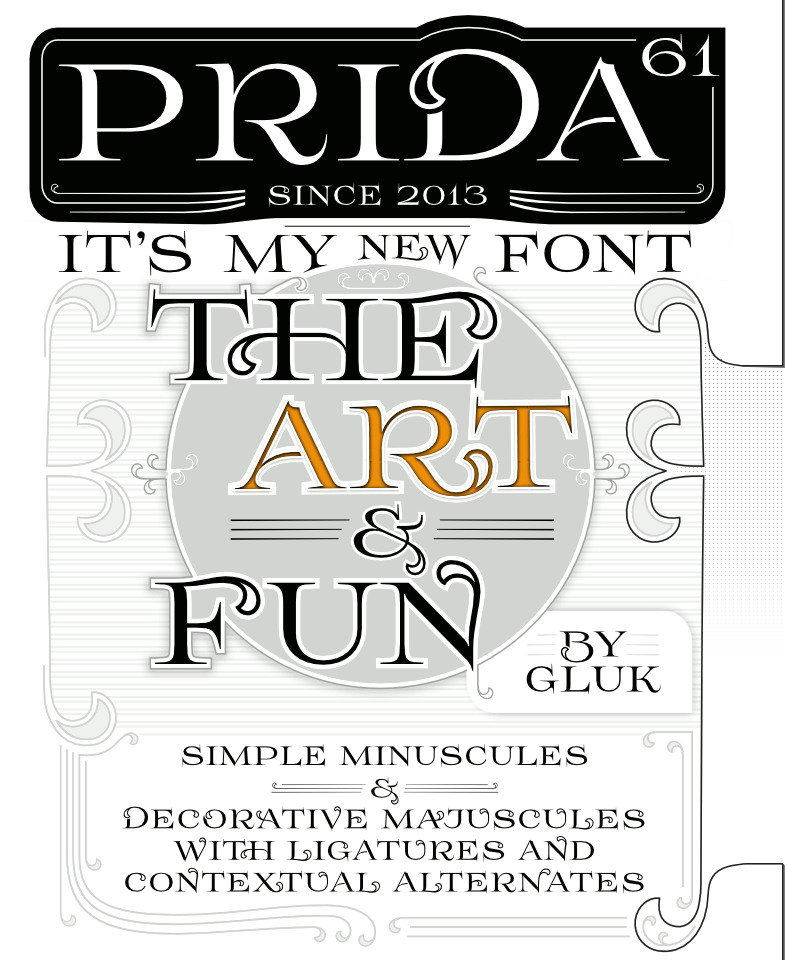
font Prida61 by gluk
Serif All Caps font Prida61 with sim­ple Lower Case and dec­o­ra­tive Upper Case. Stan­dard Lig­a­tures, Con­tex­tual Alter­nates, Ini­tial and Final forms only for Upper Case.